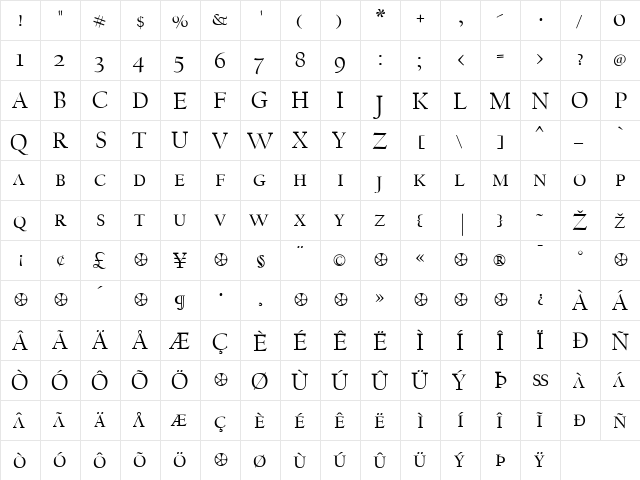
CalifornianMiddle Regular
| Foundry | The Font Bureau, Inc |
Design Context for CalifornianMiddle Typeface
CalifornianMiddle is a composed and adaptable typeface that performs quietly and consistently across a wide range of design contexts.